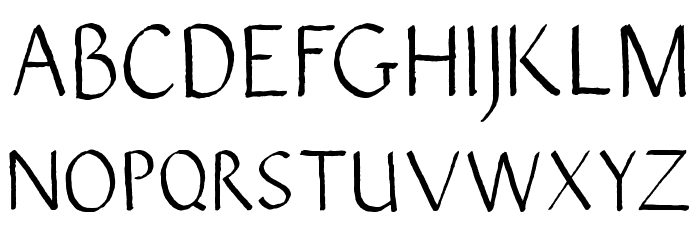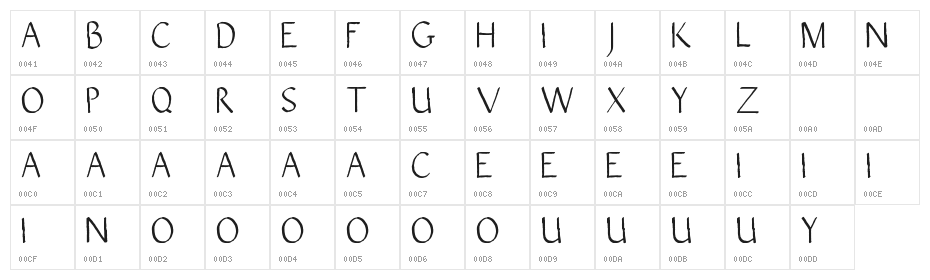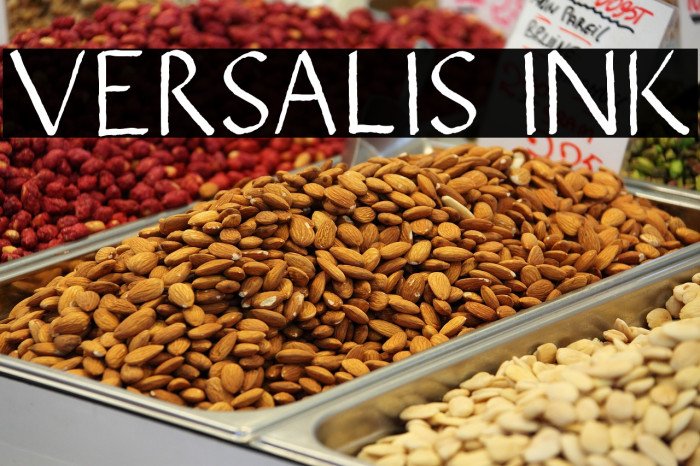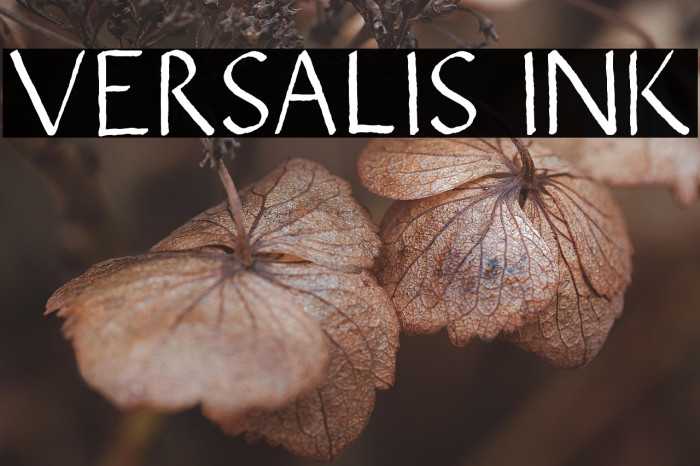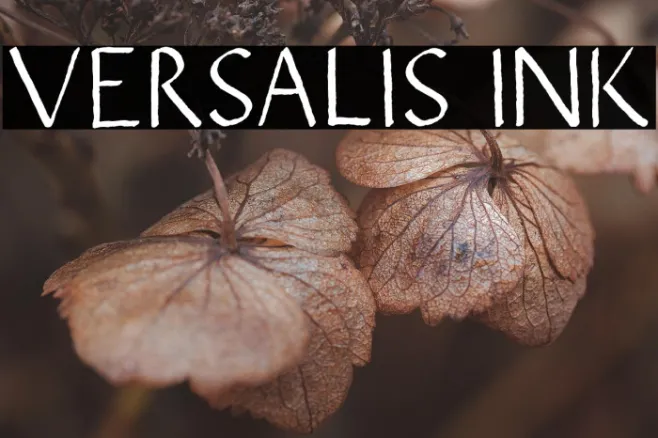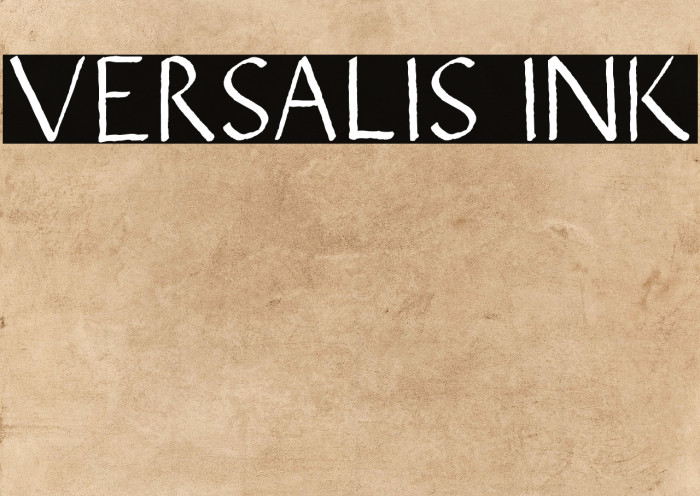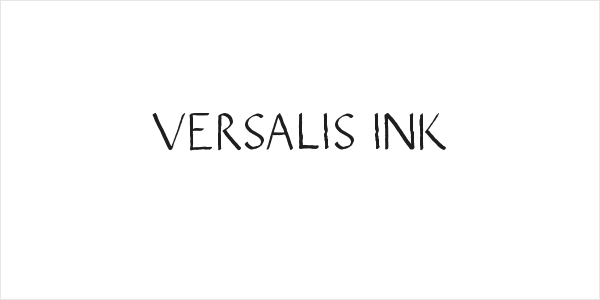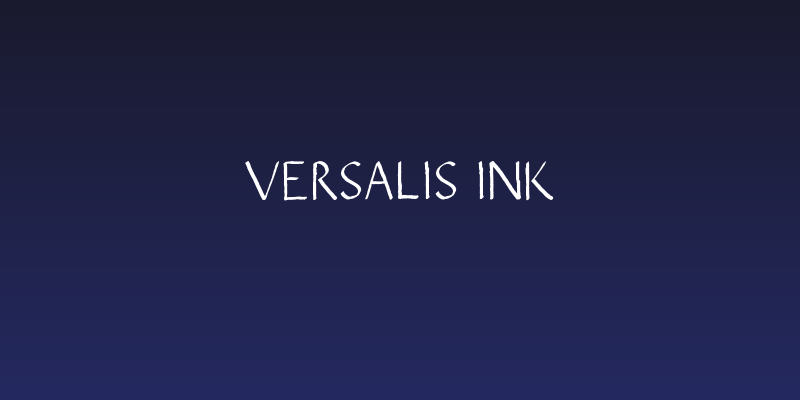
VERSALIS INK Font
VERSALIS INK Description
This font features a hand-drawn, ink-like appearance with a rustic and organic feel. Each character is crafted with uneven strokes, giving it a natural and artistic look. The letters have a slightly rough texture, reminiscent of traditional calligraphy or brush strokes. The uppercase letters are bold and prominent, while the lowercase letters maintain a consistent style, adding to the font's cohesive aesthetic. The numbers and special characters follow the same design principles, ensuring uniformity across all elements. This font is ideal for projects that require a touch of creativity and authenticity.
| Overall Style | Artistic |
| Use Case | Headlines, Logos, Artistic projects |
| Proposed Projects | Ideal for artistic projects, invitations, posters, and branding that require a creative and authentic touch. |